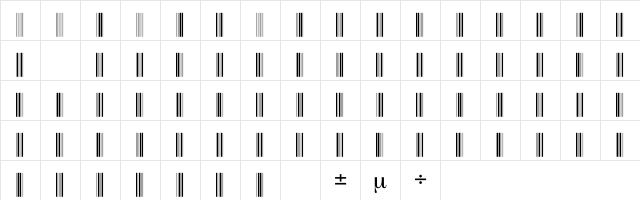
C39P36DmTt Normal
Design Context for C39P36DmTt Typeface
C39P36DmTt is a composed and adaptable typeface that performs quietly and consistently across a wide range of design contexts.